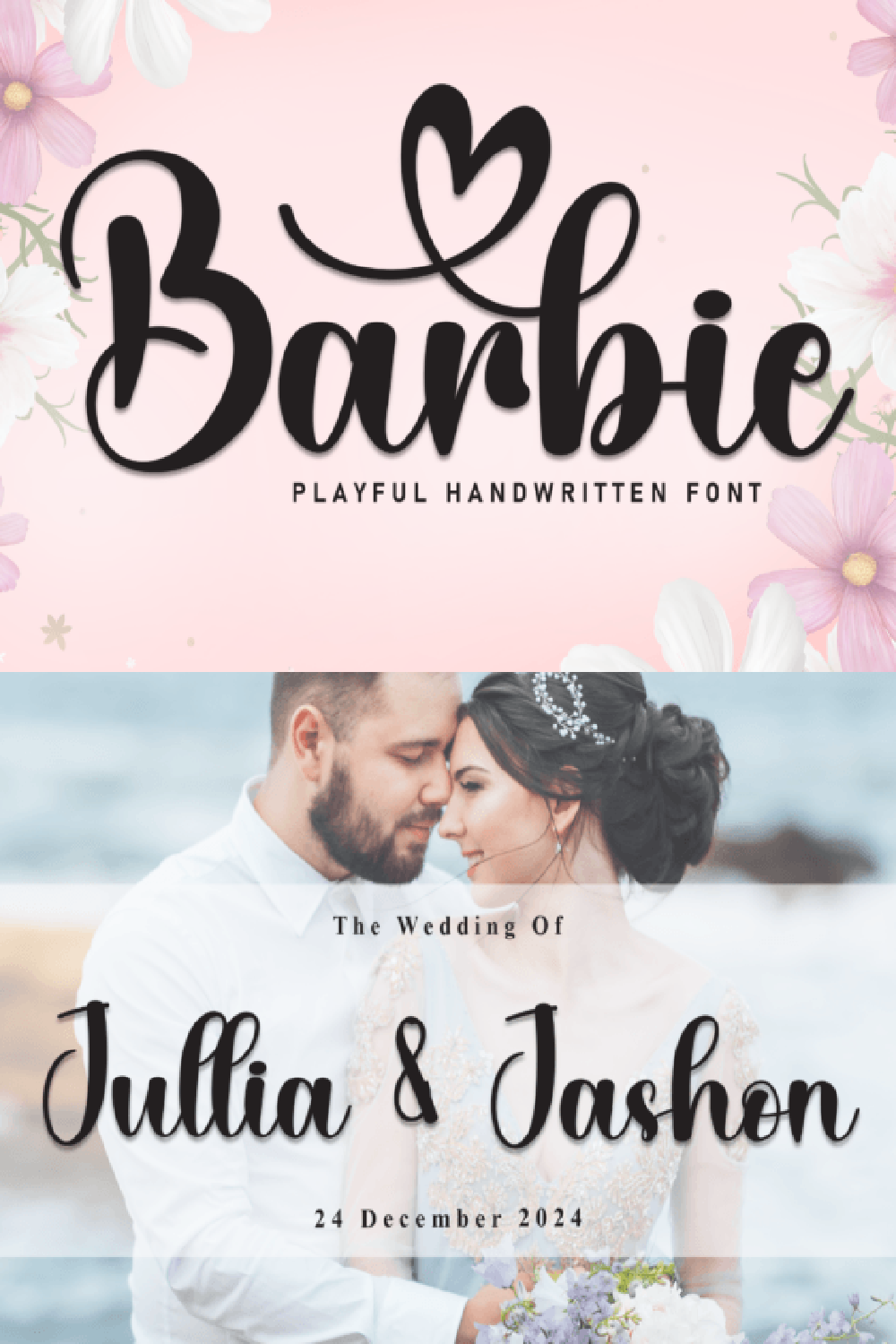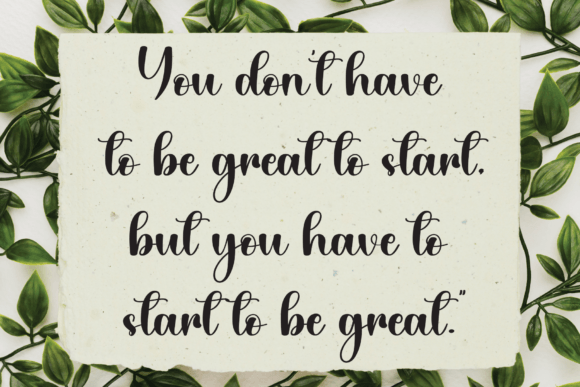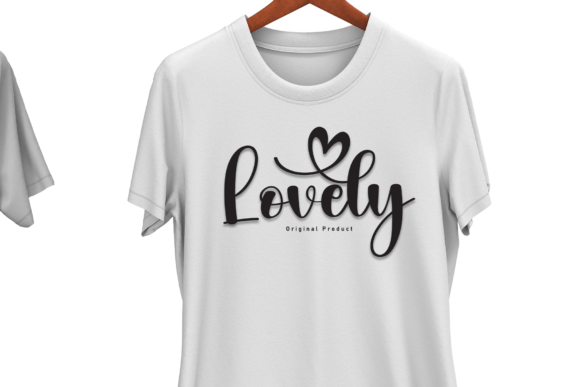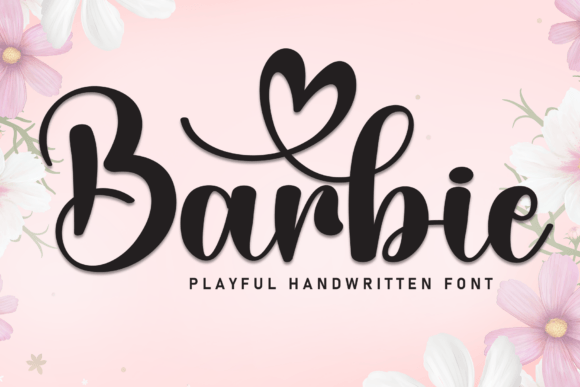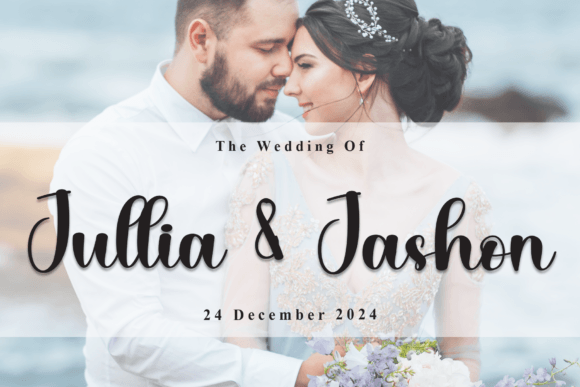
About the Barbie Font
The wait is over! The incredible Barbie Font is now available for your design toolkit. Barbie is a magical script font carefully created with a touch of elegance. Whether you’re looking for fonts for Instagram or calligraphy scripts for DIY projects, this font will turn any creative idea into a true piece of art!
Barbie Font Usage Examples